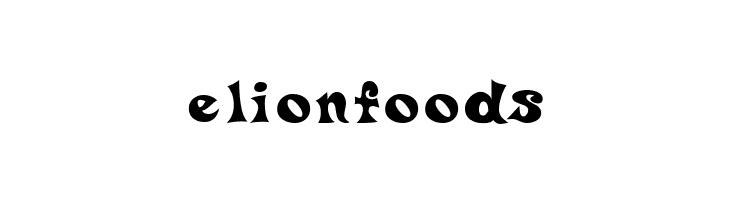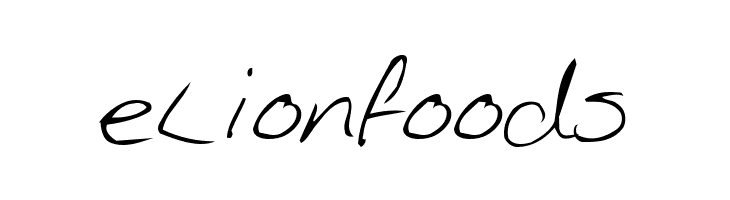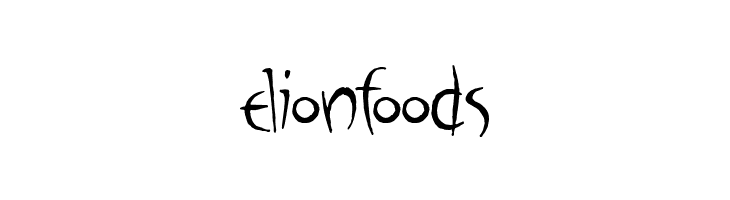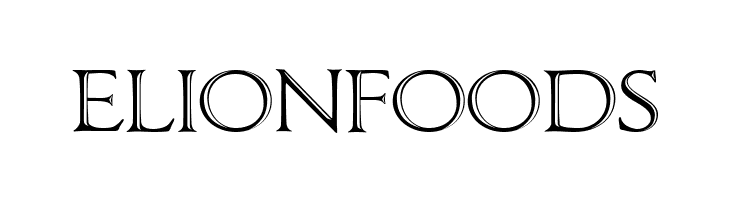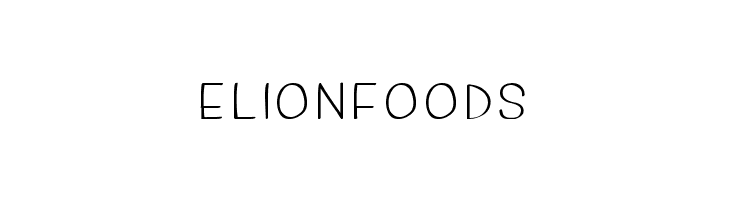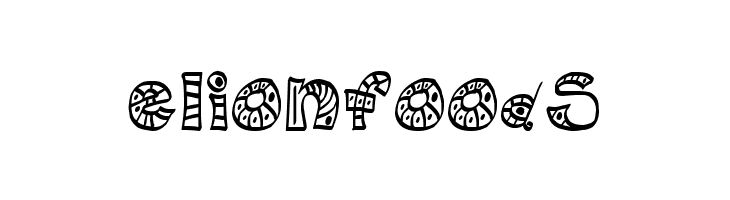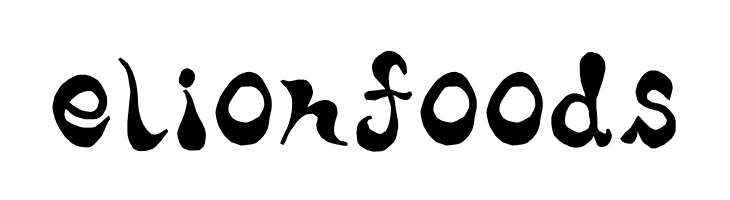
( Fonts by Daniel Gauthier )
A fluid and elegant handwritten script font with a personal touch.
( Fonts by Astigmatic One Eye Typographic Institute - Brian J. Bonislawsky - astigmatic.com )
A hand-drawn, artistic font with elongated strokes and whimsical character shapes.
An ornate and decorative font with intricate curves and flourishes.
( Fonts by www.vicfieger.com )
A playful, handwritten font with bold, slanted strokes and a lively appearance.
A playful, alien-themed font with quirky patterns and textures.
A playful, hand-drawn font with intricate patterns and doodles.